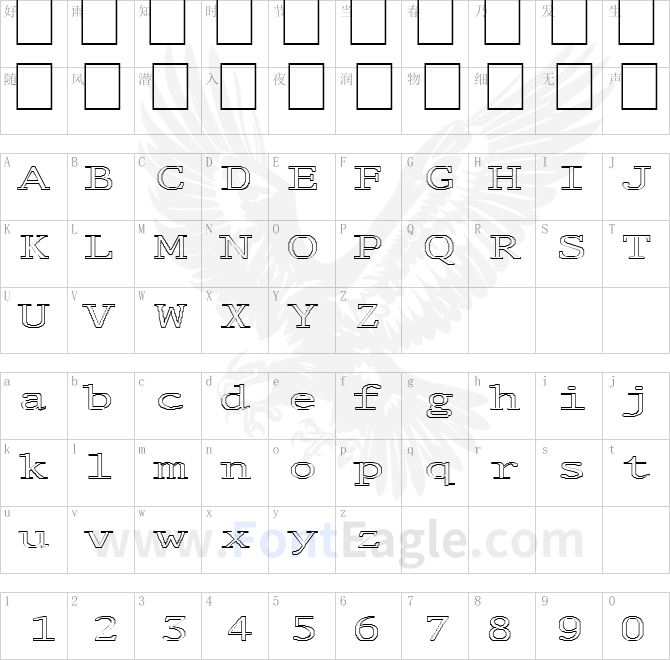
- Font name:FZ DIGITAL 1 HOLLOW EX
- Font Subfamily ID:FZ DIGITAL 1 HOLLOW EX
- Font Full Name:FZ DIGITAL 1 HOLLOW EX
- Postscript:FZ-DIGITAL1HOLLOWEX